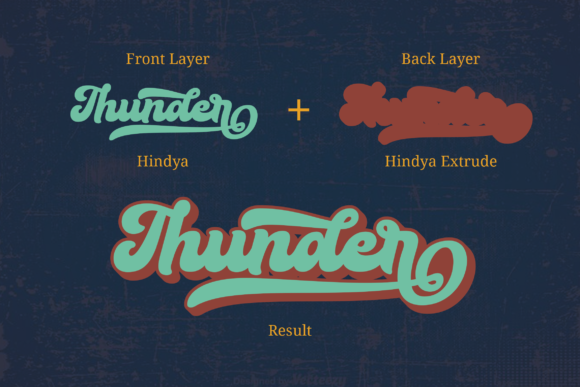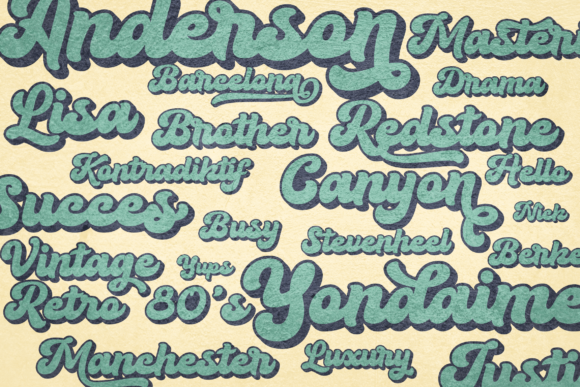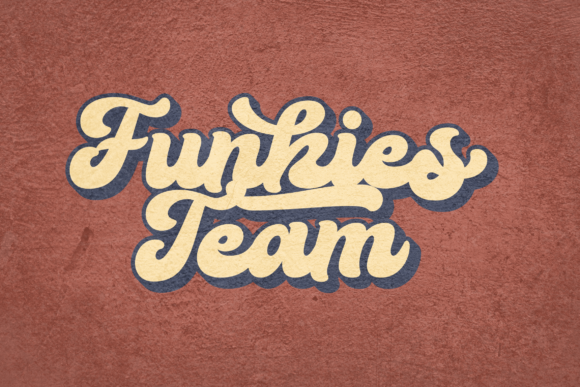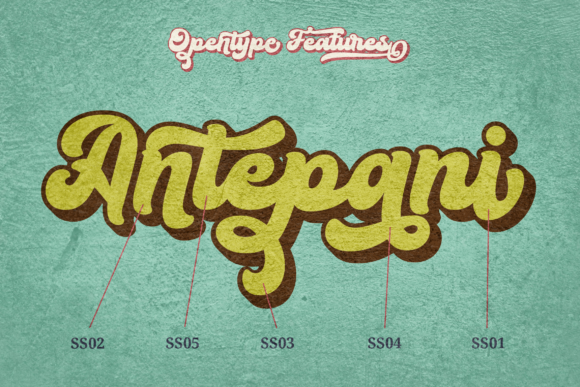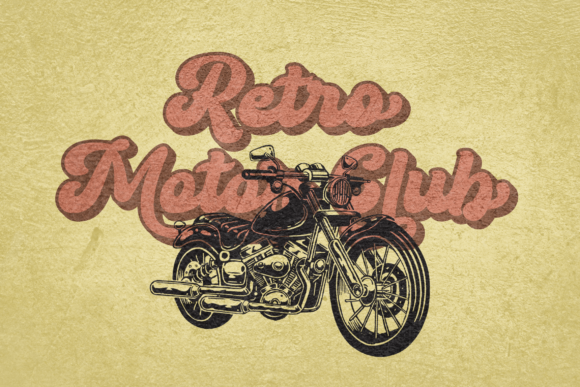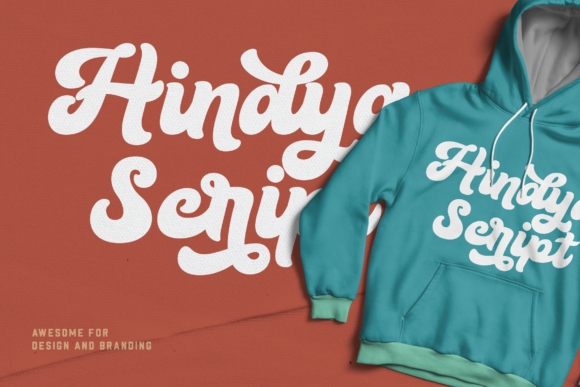
Introduction to Hindya Font
Have you ever stumbled upon an old, worn-out book or a vintage sign that sparks your creativity? For many designers, that’s the moment when the perfect font comes to mind – a font that captures the essence of nostalgia and adds a touch of personality to their work. Enter the Hindya Font, a bold and retro-styled handwritten font that’s about to become your new go-to design resource.
With its strong, confident, and dynamic feel, Hindya Font is the perfect addition to any creative project. Whether you’re working on a design project that requires a high-quality, free download or simply want to add some extra flair to your graphics, this font is sure to deliver. And with its transparent background and PUA-encoded glyphs, you’ll have no problem accessing all the swashes and styles you need to bring your design to life.
Key Features of Hindya Font
- High-quality, unique design suitable for creative projects, including graphic design, digital art, and publishing.
- Features a transparent background, making it easy to layer and composite with other design elements.
- Comes in a range of sizes, including 100, 200, 300, 400, 500, 600, 700, 800, and 900, to suit various design needs.
- Designed with a high resolution of 300 DPI, ensuring crisp and clear text rendering.
- Perfect for designers and artists looking for a unique and eye-catching font to elevate their creative projects.
Honest Review: Hindya Font
As a designer, I’m always on the lookout for high-quality design resources that can elevate my creative projects. The Hindya Font is one such resource that I’ve had the chance to work with, and I must say it’s a game-changer. ✨
The Hindya Font offers a unique blend of modern and traditional elements, making it perfect for a wide range of creative projects, from branding to packaging design. The font is available for free download, which is a huge plus in my book. I love that it’s a free design resource that I can rely on without breaking the bank.
- High-quality design with a unique blend of modern and traditional elements.
- Perfect for a wide range of creative projects, from branding to packaging design.
- Transparent background, making it easy to use with any design element.
- ⚠️ Limited customization options, which may not be ideal for designers who like to experiment with different font styles.
Overall, I’m impressed with the Hindya Font, and I think it’s a great addition to any designer’s toolkit. It’s a high-quality design resource that’s perfect for creative projects, and it’s available for free download. What more could you ask for? ✨
Tips for Getting the Most Out of Hindya Font
To get the most out of the Hindya Font, use it in combination with other design elements, like images and colors, to create visually appealing graphics. Experiment with different font sizes and styles to achieve the desired effect.
The Hindya Font is ideal for creative projects that require a unique and eye-catching font. Some common use cases include:
– Social media graphics and posts
– Logos and branding materials
– Presentations and reports
– Creative documents and publications